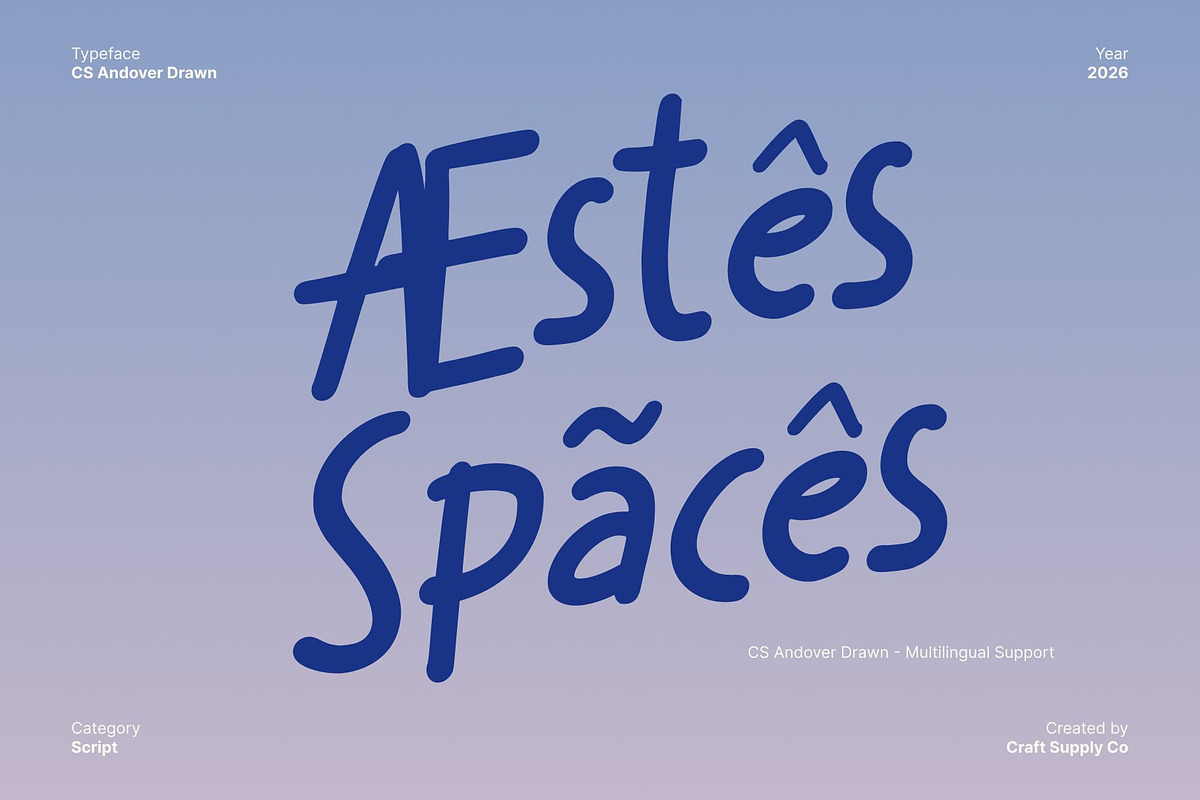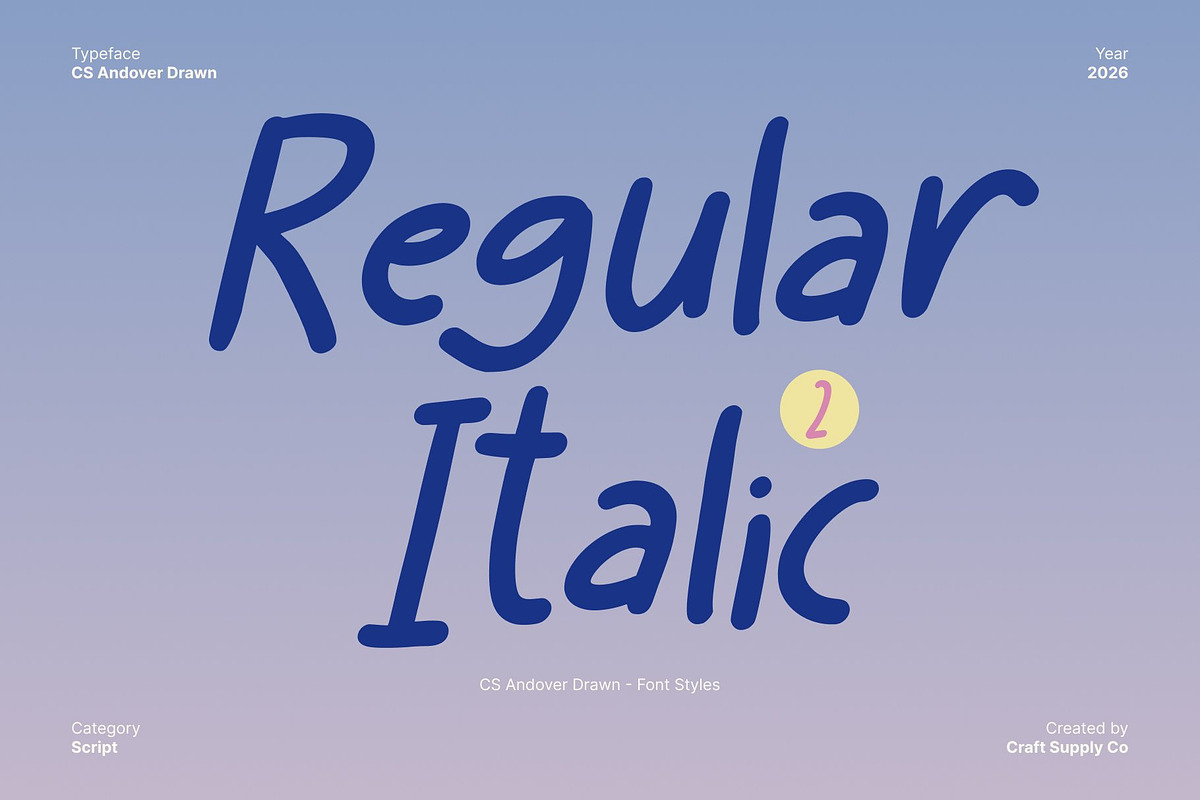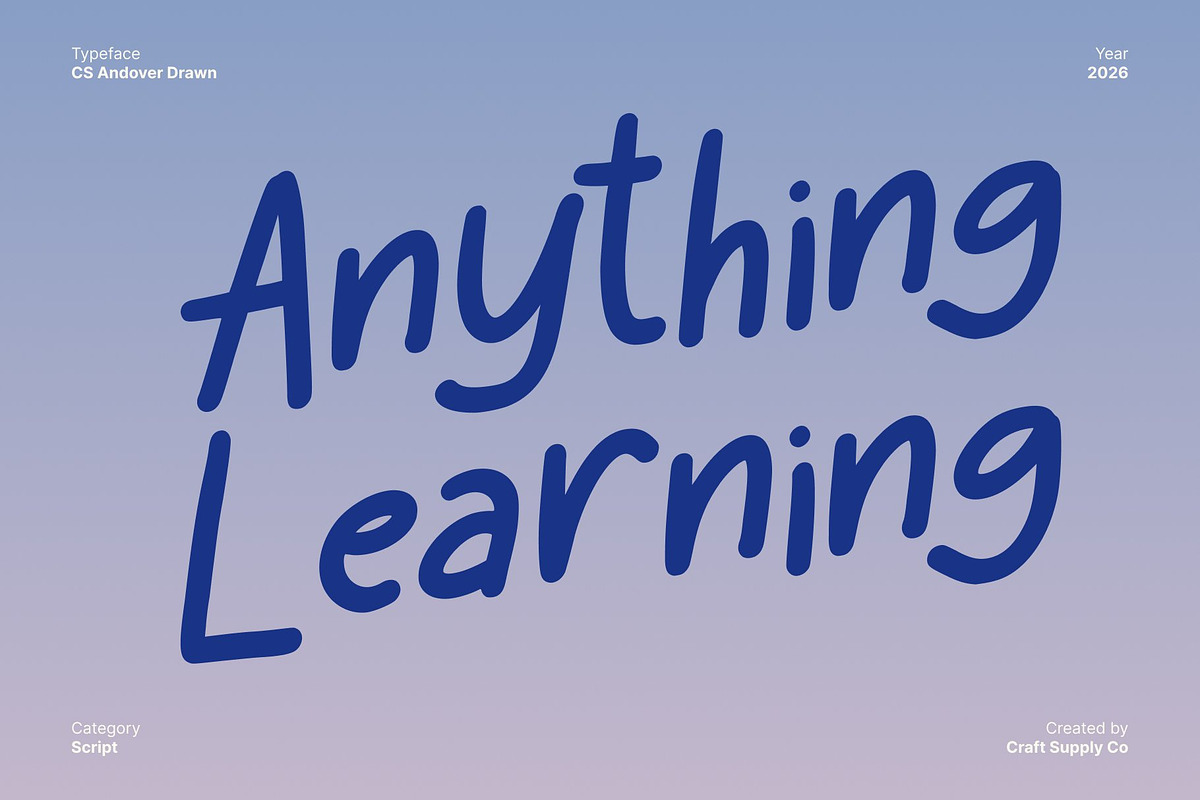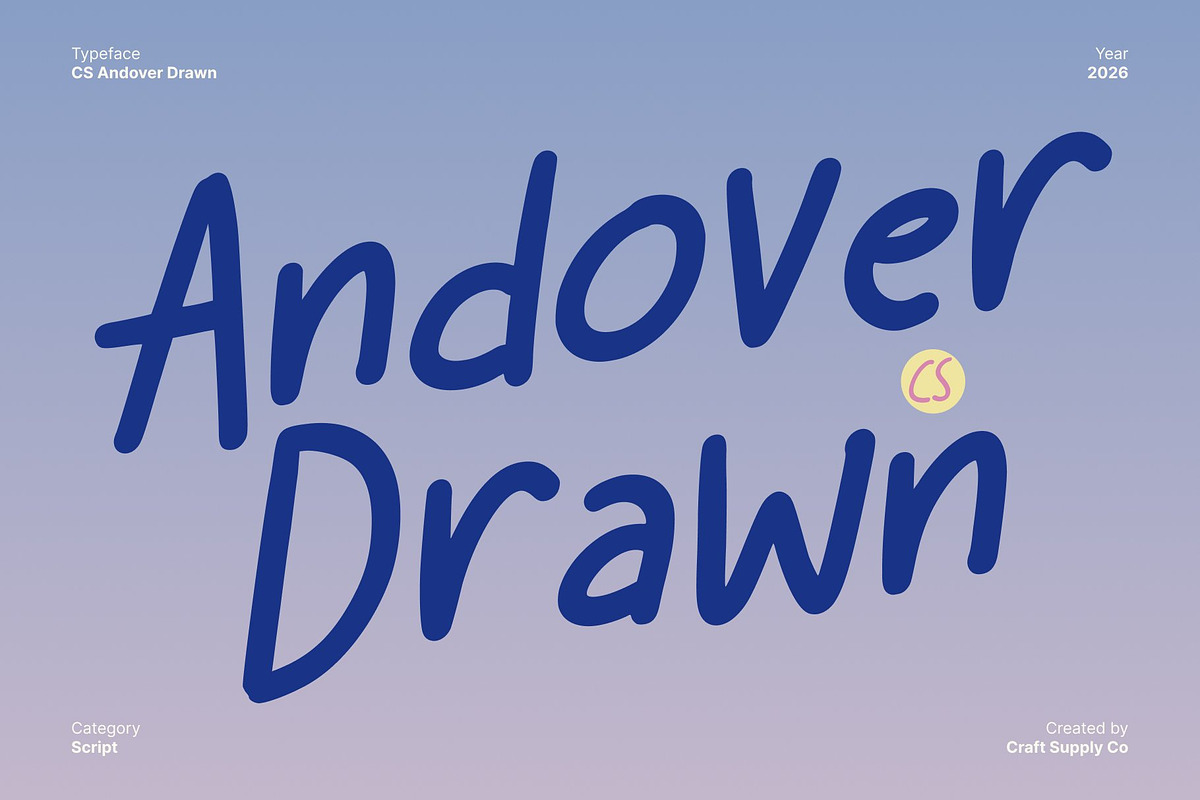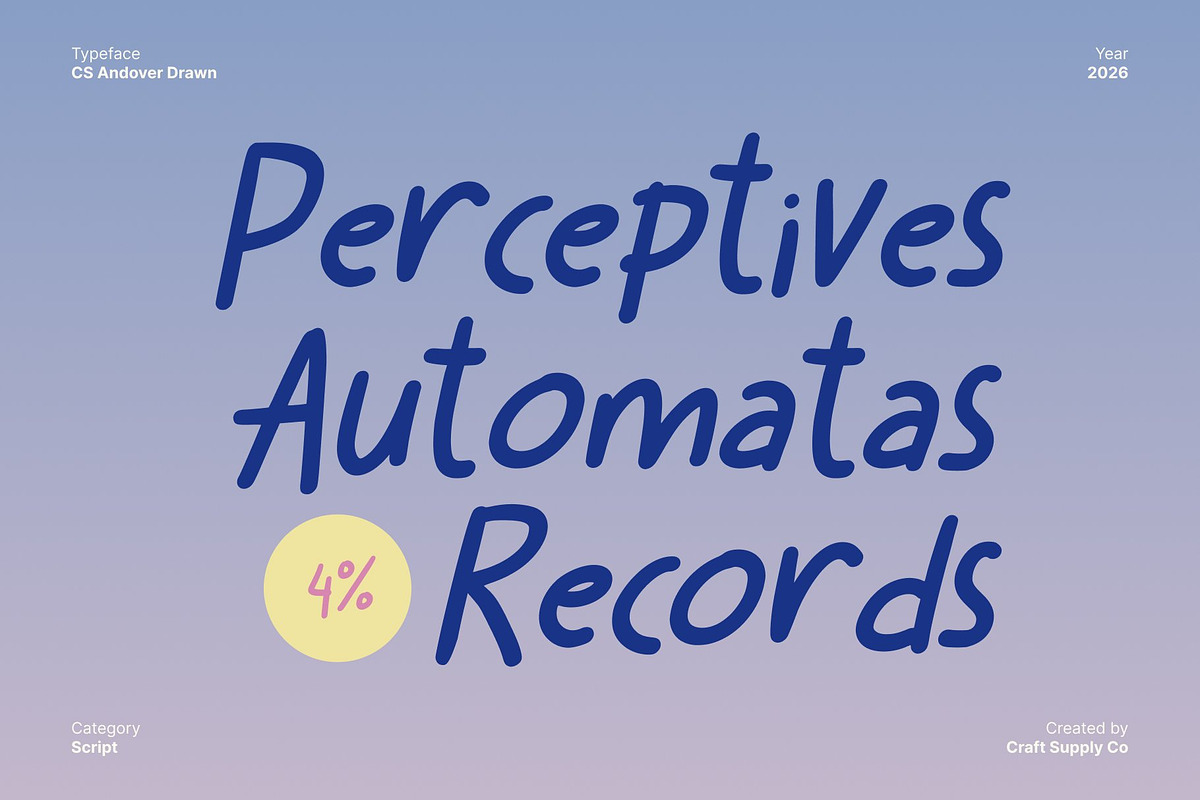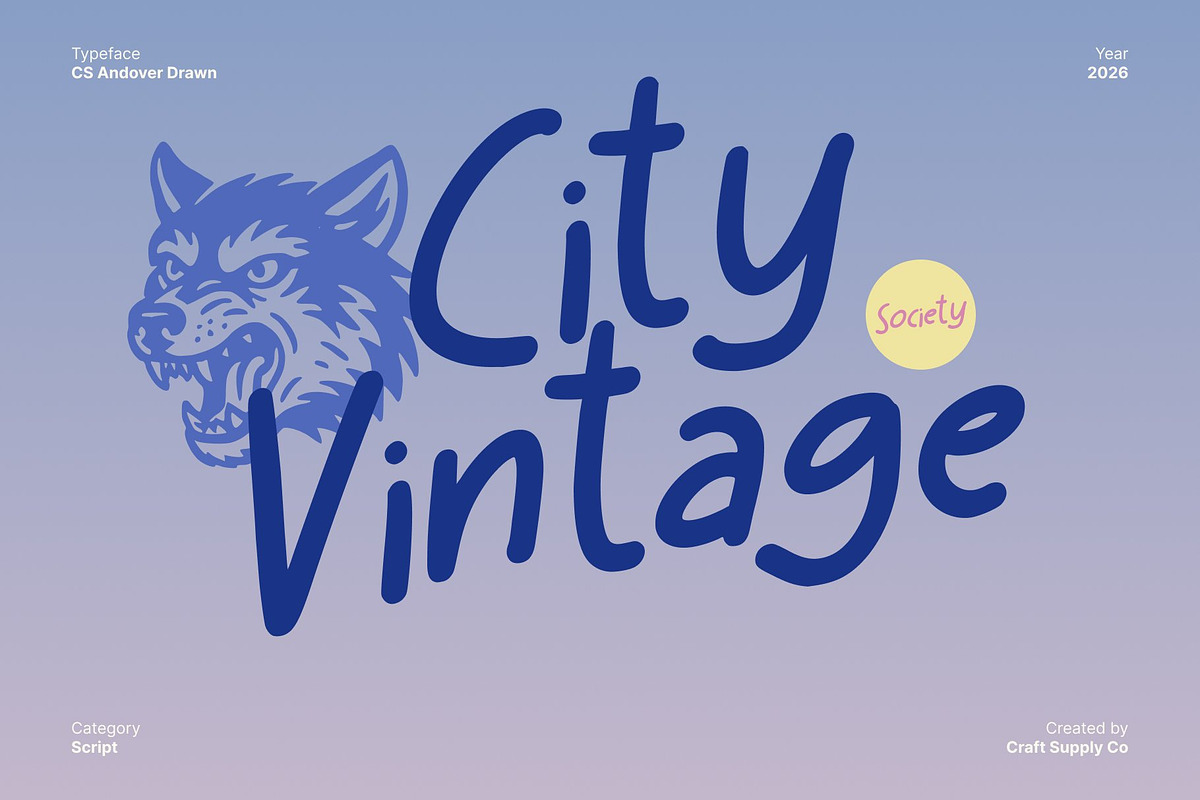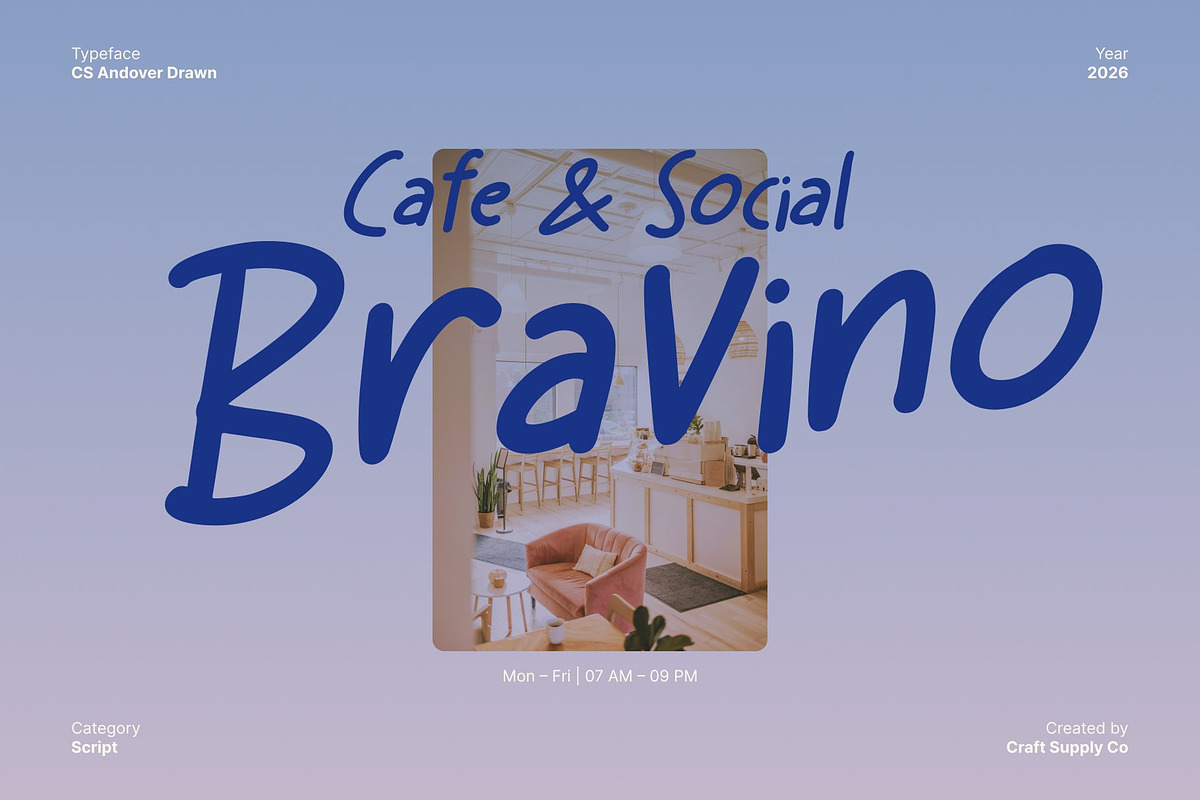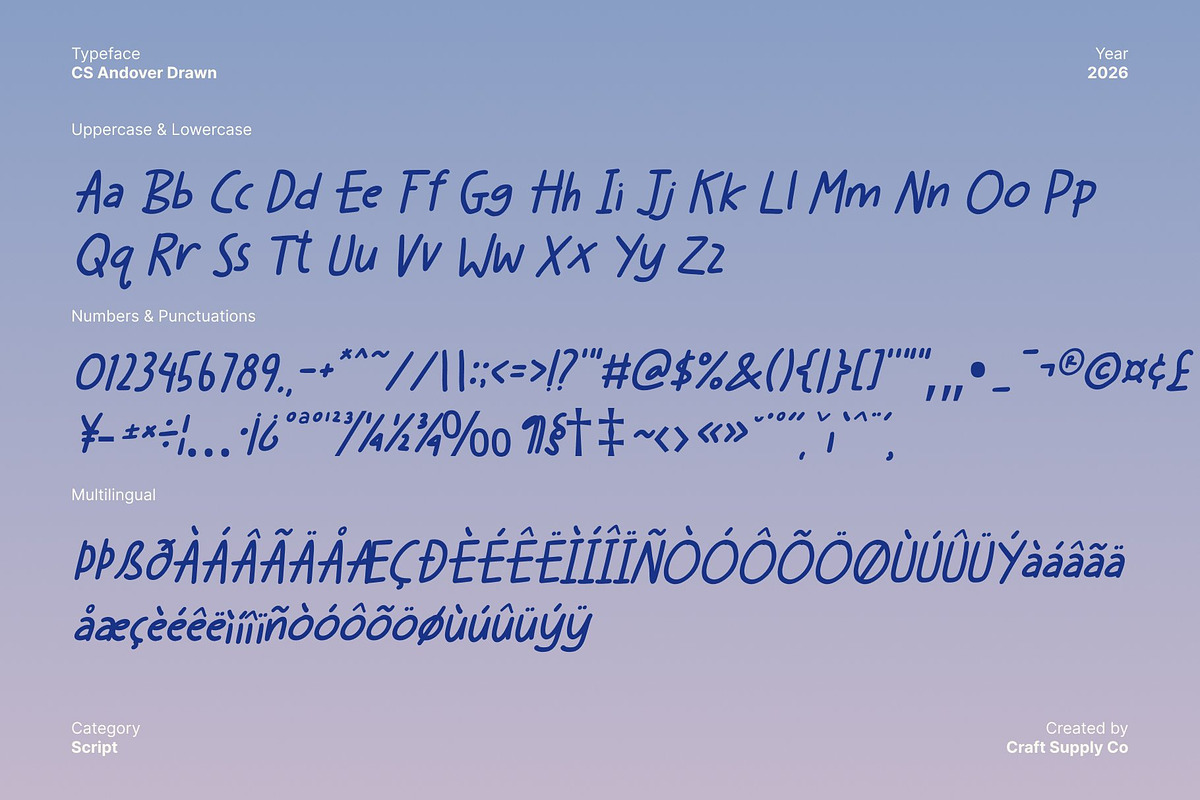
CS Andover Drawn
CS Andover Drawn – Playful Handwriting Full of Energy
Playful Handwritten Font with Friendly Vibes This is a fun and energetic handwritten font designed to bring joy and personality into every design. Its naturally drawn strokes and approachable letterforms create a warm, casual look that instantly feels friendly and inviting. Each character carries a lively spirit, making the font ideal for projects that aim to feel youthful, cheerful, and engaging.
Rounded Strokes for Warmth and Approachability The soft, rounded shapes give this font a gentle and welcoming character. Its hand-drawn texture adds an organic touch, while the clean structure maintains readability across different uses. This balance allows the font to feel playful without becoming messy, making it visually appealing and easy to read.
Energetic Style for Dynamic Designs With its lively rhythm and spontaneous flow, this font radiates positive energy. The drawn effect enhances the sense of motion and fun, making it perfect for designs that need excitement and expression. It works beautifully for greeting cards, lifestyle graphics, casual branding, and social media content.
Perfect for Youthful and Casual Projects From youth-oriented branding and cheerful invitations to playful posters and creative campaigns, this font adds a personal, joyful touch. Its friendly handwritten style ensures every design feels approachable, expressive, and full of positive energy that connects instantly with the audience.
- CS Andover Drawn Regular
- CS Andover Drawn Italic